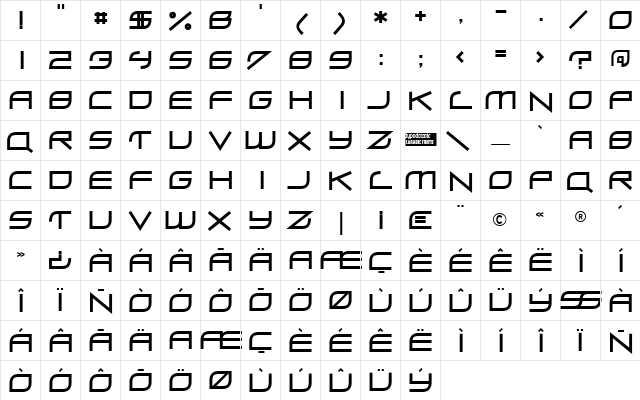
Zero Hour Regular
Design Context for Zero Hour Typeface
Zero Hour is a composed and adaptable typeface that performs quietly and consistently across a wide range of design contexts.